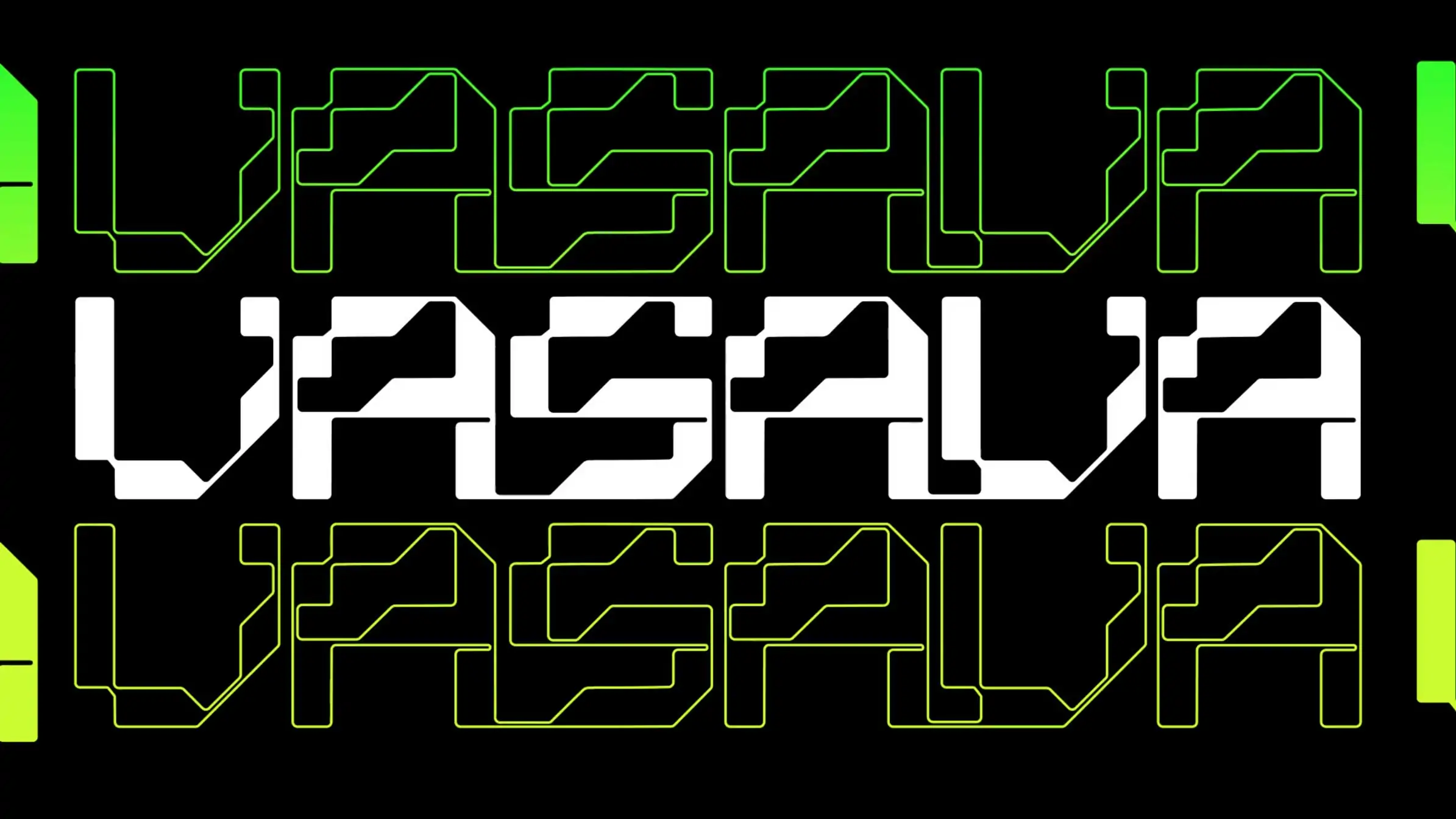
Turns out there’s a whole 3-day conference focused on the design side of soccer. It’s called Cultura FC and it just wrapped in San Diego, where it opened with this hypnotic blast of typography from the motion crew at Laundry in LA.
PJ Richardson, ECD/co-founder at Laundry: “The Challenge with this sequence was how to represent a diverse range of creatives with their own styles without competing and creating more noise, while also being on brand for the conference and getting everyone excited. To us, that meant leaning into the speaker names typographically.
“The Challenge with this sequence was how to represent a diverse range of creatives with their own styles without competing and creating more noise.”
“We’ve been super excited about kinetic and expressive type recently. So, we built a high-energy, finals-style intro to hype the crowd — no extra graphics, just the names of the creative superstars.
“Ultimately, we knew we’d be designimating. Our layouts were basic by design, so we could find even cooler moments in motion. What started off simple, we found needed a bit of chaos and energy. This came in the form of color and vibrant glitch animation loops we overlaid once we got the sequence in a nice spot to amplify the excitement.”